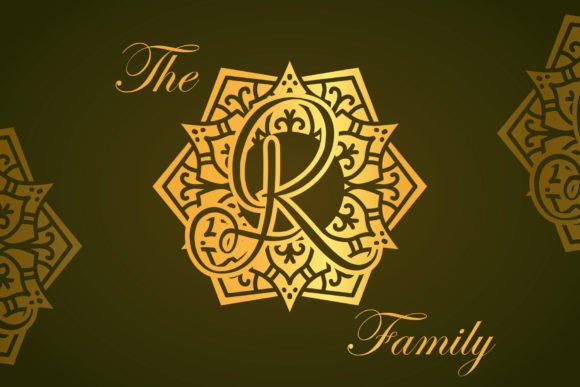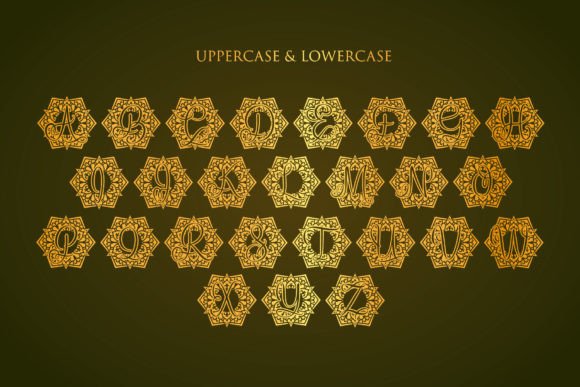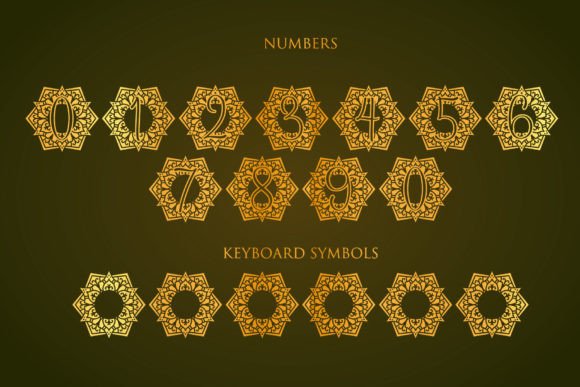
Introducing Clove Mandala Monogram Font: Elevate Your Creations with Elegance
Are you a designer, crafter, or DIY enthusiast looking for a unique and stylish font to take your projects to the next level? Look no further than the Clove Mandala Monogram Font. Inspired by the intricate elegance of mandala art, this decorative font is sure to add a touch of sophistication to any creation.
What is Clove Mandala Monogram Font?
Clove Mandala Monogram Font is a carefully crafted typeface that combines the beauty of mandalas with the functionality of a monogram font. Each letter is intricately designed to resemble a mandala, with delicate patterns and swirling shapes that evoke a sense of calm and serenity. The result is a font that is both visually striking and versatile, making it perfect for a wide range of applications.
Key Features of Clove Mandala Monogram Font
- Unique and Stylish Design: The Clove Mandala Monogram Font boasts a distinctive and elegant design that is sure to turn heads. Its intricate patterns and swirling shapes add a touch of sophistication to any project.
- Classy and Versatile: Whether you’re creating a logo, invitation, or social media graphic, this font is versatile enough to adapt to any style or theme.
Uses for Clove Mandala Monogram Font
The Clove Mandala Monogram Font is perfect for a wide range of projects, including:
- Logos and Branding: Create a unique and memorable logo for your business or brand with this eye-catching font.
- Invitations and Stationery: Add a touch of elegance to your invitations, greeting cards, and stationery with this beautiful font.
- Social Media Graphics: Elevate your social media graphics, such as Instagram posts and Facebook covers, with this stylish font.
- Crafting and DIY Projects: Use this font to add a personal touch to your crafting and DIY projects, such as handmade cards, scrapbooking, and woodworking.
Tips for Using Clove Mandala Monogram Font
To get the most out of the Clove Mandala Monogram Font, here are a few tips to keep in mind:
- Experiment with Different Sizes and Colors: Play around with different font sizes and colors to find the perfect combination for your project.
- Pair with Other Fonts: Combine the Clove Mandala Monogram Font with other fonts to create a unique and visually appealing contrast.
- Use in Combination with Images: Use this font in combination with images or graphics to add an extra layer of depth and interest to your project.
In conclusion, the Clove Mandala Monogram Font is a stylish and unique decorative font that is sure to elevate any creation. With its elegant design, versatility, and ease of use, this font is perfect for designers, crafters, and DIY enthusiasts looking to add a touch of sophistication to their projects. Whether you’re creating a logo, invitation, or social media graphic, the Clove Mandala Monogram Font is a great choice.